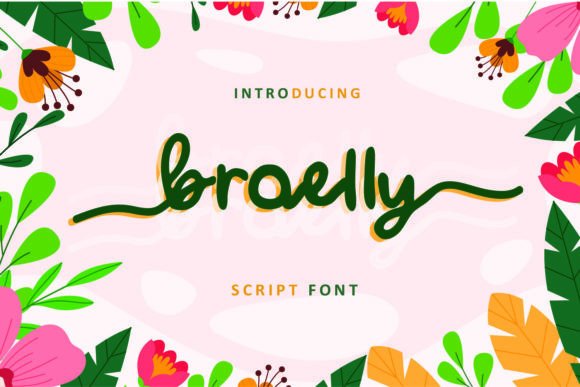
Unleash the charm of handwritten elegance with Broelly Font, a mesmerizing script font that dances across your designs with grace and sophistication. Crafted with the utmost care by Vunira, this font echoes the beauty of authentic penmanship, capturing the essence of heartfelt messages and personal expression. Broelly Font isn't just a font; it's an experience, an invitation to immerse yourself in the art of handwritten allure.
With Broelly Font, you'll find endless possibilities to transform your creative visions into stunning realities. Its flowing curves and elegant swirls add a touch of timeless charm to logos, branding, invitations, and social media posts. Elevate your wedding stationery with Broelly's delicate strokes, evoking a sense of romance and intimacy. Create captivating posters and flyers that draw attention with Broelly's bold and expressive characters.
Whether you're a seasoned designer or a creative enthusiast, Broelly Font is the perfect tool to add a personal touch to your work. Its versatility extends to a wide range of applications, from digital art to print media. Its ability to blend seamlessly with other fonts makes it an ideal choice for layering and creating captivating typographic compositions.
But what truly sets Broelly Font apart is its ability to evoke emotion. Its intricate details and organic flow create a sense of connection between you and your audience. Words crafted with Broelly Font resonate with authenticity and sincerity, leaving a lasting impression on the hearts of those who encounter them.
So, if you seek a font that enchants and captivates, look no further than Broelly Font. With its timeless elegance and heartfelt charm, Broelly Font is the key to unlocking your creative potential and leaving an enduring legacy of beauty. Download Broelly Font today and embark on a journey of artistic exploration and emotional expression.